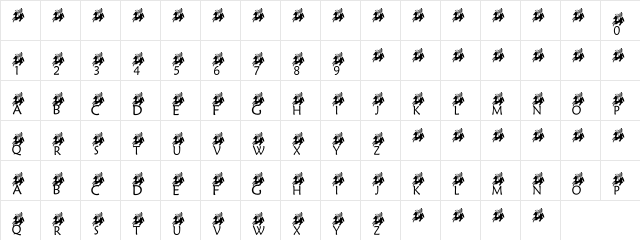
pf_pegasus1 Regular Free Font
pf_pegasus1 Regular
Design Context for pf_pegasus1
pf_pegasus1 is a composed and adaptable typeface that performs quietly and consistently across a wide range of design contexts.